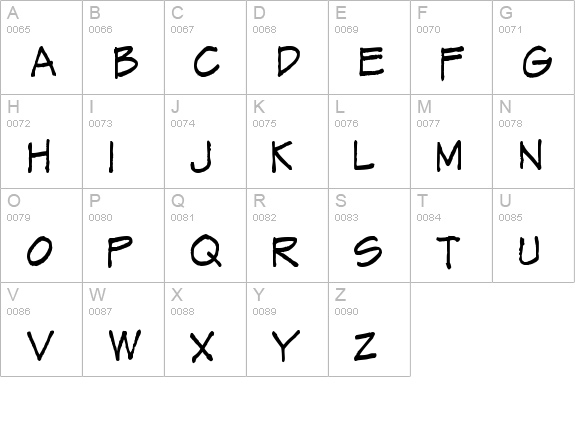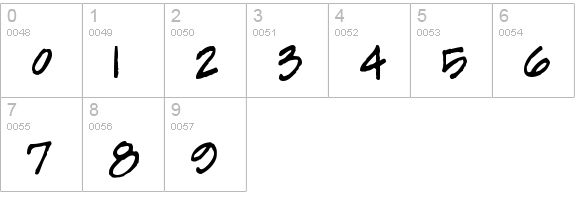
Frank the Architect font is a stylish and versatile typeface designed for architectural projects and creative designs. With its sleek lines and modern aesthetic, this font is perfect for giving your work a professional and polished look. Whether you're designing a new building, creating a logo, or working on a branding project, Frank the Architect font is sure to make a statement. What's even better is that Frank the Architect font is available for free download at FontsMarket.com. Yes, you heard it right - you can get your hands on this amazing font without spending a dime. So why wait? Add Frank the Architect font to your collection today and take your designs to the next level.